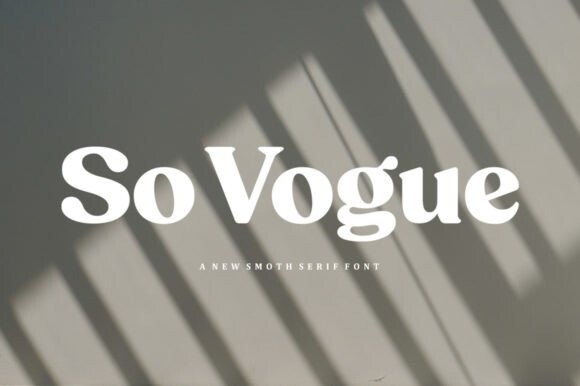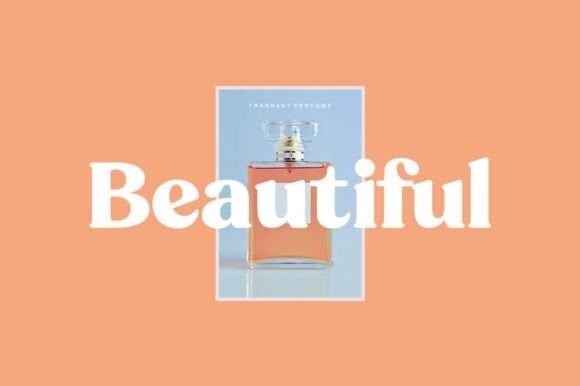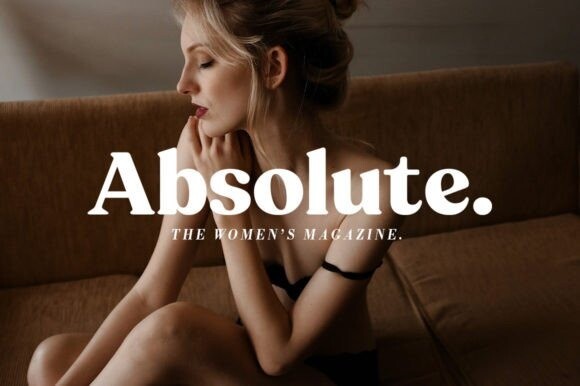
So Vogue Font
So Vogue is a bold, trendy and thick-lettered serif font. Fall in love with its incredibly versatile style, and use it to create spectacular designs!